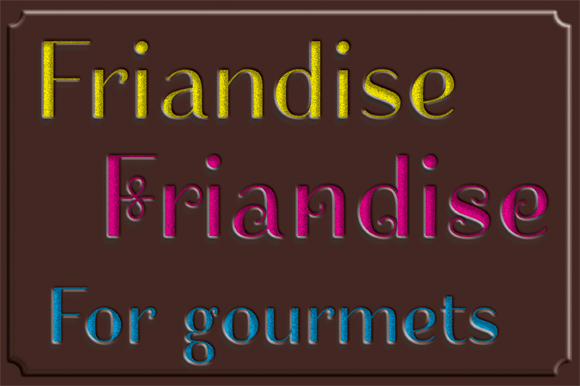
Embark on a typographic journey to the land of sweet treats with Friandise Font, a decorative masterpiece crafted by JBFoundry. Inspired by the allure of chocolate, this font is a delightful blend of elegance and whimsy. Each letterform is like a morsel of pure delight, adding a touch of charm and sweetness to your digital creations.
Immerse yourself in the rich world of Friandise, where curves dance and flourishes twirl. This font exudes a sense of playfulness and joy, making it perfect for adding a touch of whimsy to your designs. From invitations to branding, social media posts to illustrations, Friandise will transform your words into delectable works of art.
Type out a love letter with the smooth, flowing characters of Friandise, letting your words melt hearts like chocolate on the tongue. Craft a birthday card that's as sweet as a box of bonbons, with Friandise adding an extra layer of charm to your heartfelt message. Create a poster for a bake sale that looks good enough to eat, using Friandise to tempt taste buds and entice customers.
Step into a world where typography takes on a new dimension of sweetness with Friandise Font. Let your imagination run wild as you explore the endless possibilities this font offers, savoring every moment of typographic bliss.